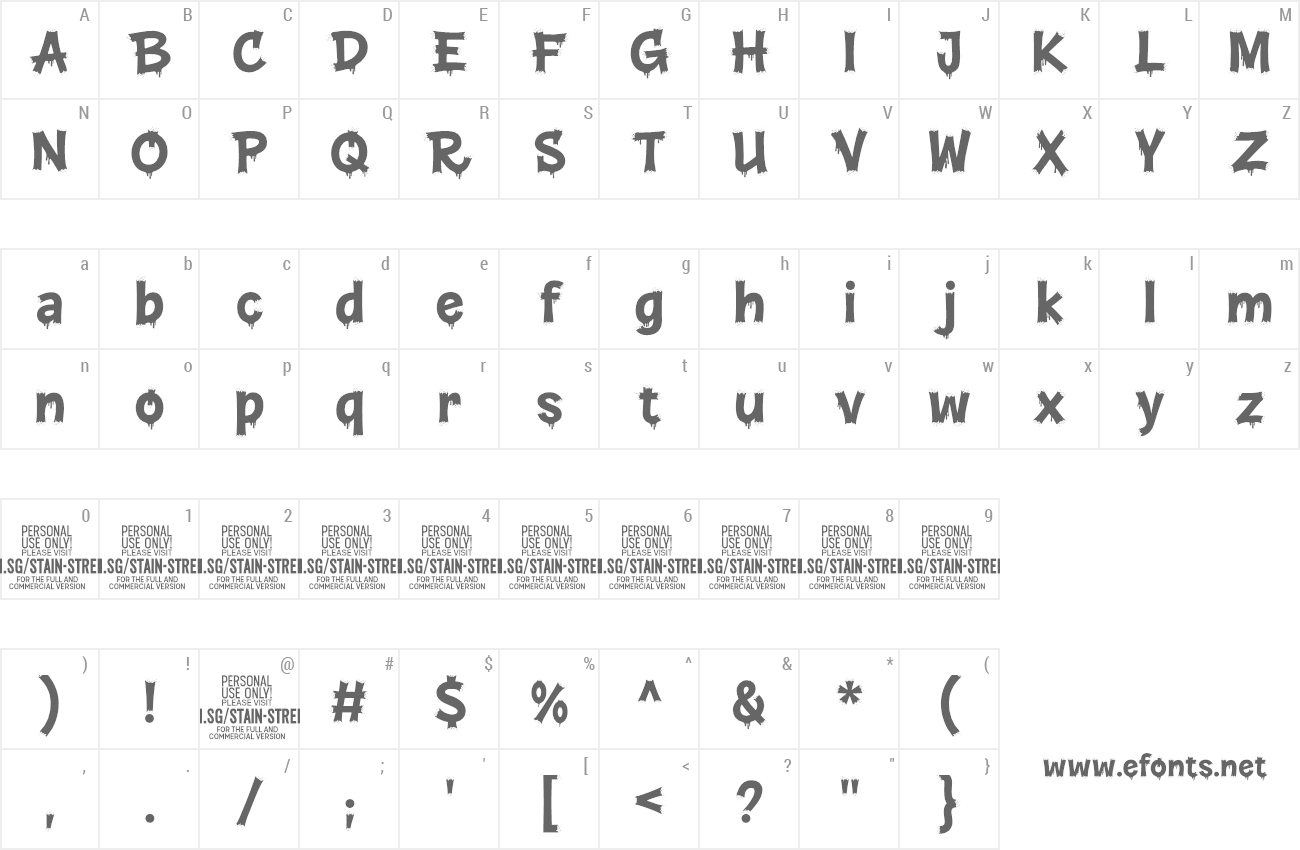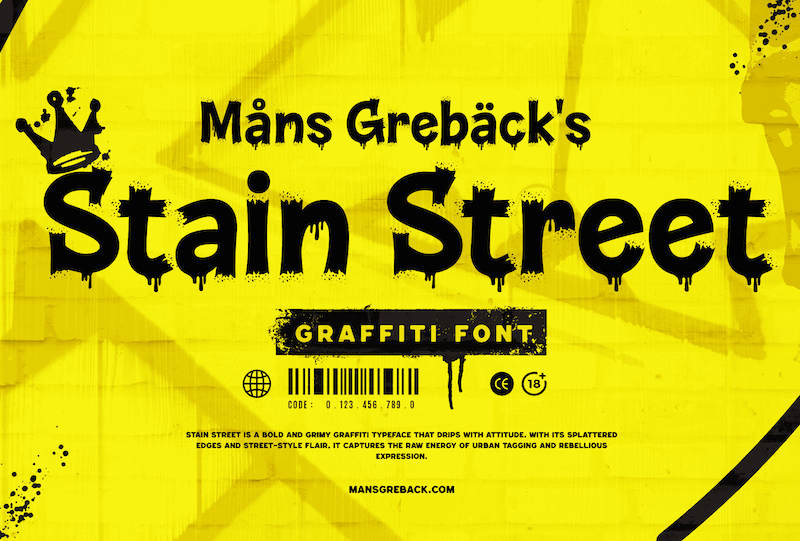
Preview and download Stain Street Font. Created by Måns Grebäck in Script Graffiti styles with Free for personal use license.
NOTE: This font is for PERSONAL USE ONLY! To purchase a commercial license, visit: https://www.mansgreback.com/product/stain-street Stain Street is a bold and grimy graffiti typeface that drips with attitude. With its splattered edges and street-style flair, it captures the raw energy of urban rebellious expression. The brushed letterforms have a cartoon-ish look. For questions, please visit https://mansgreback.com/faq |